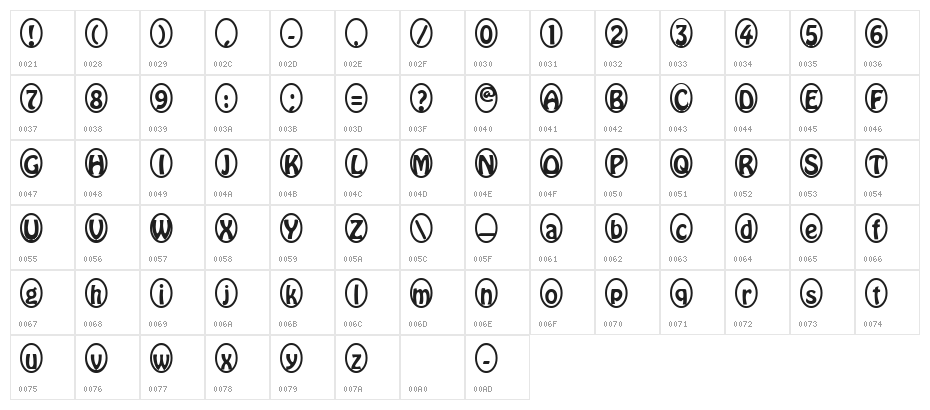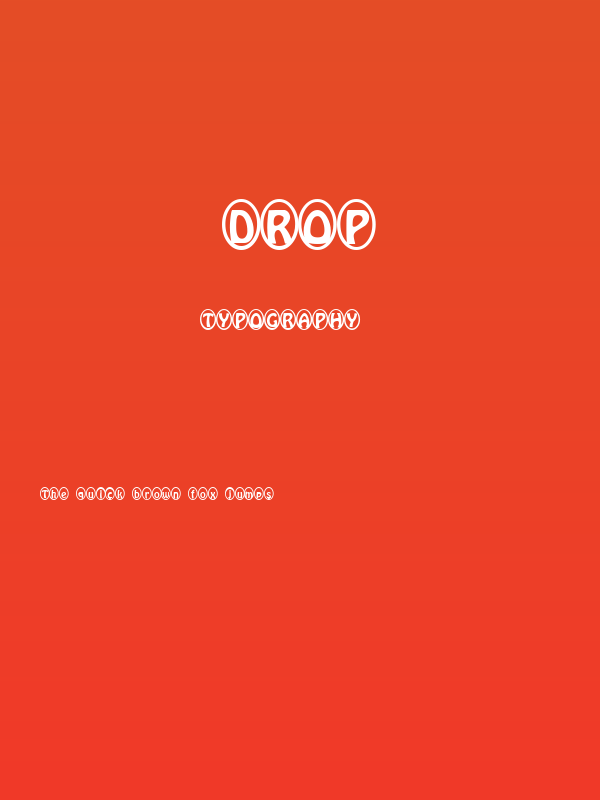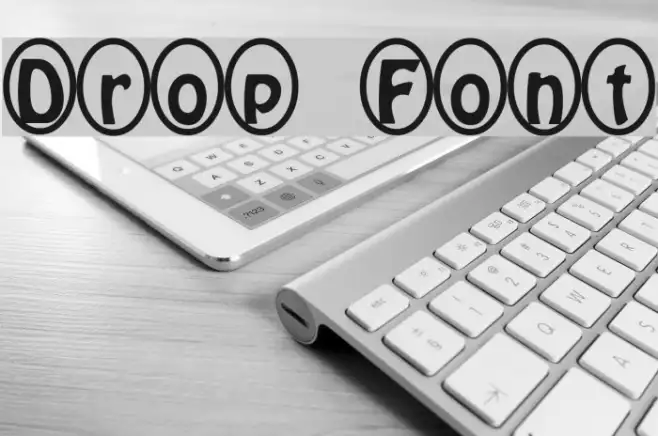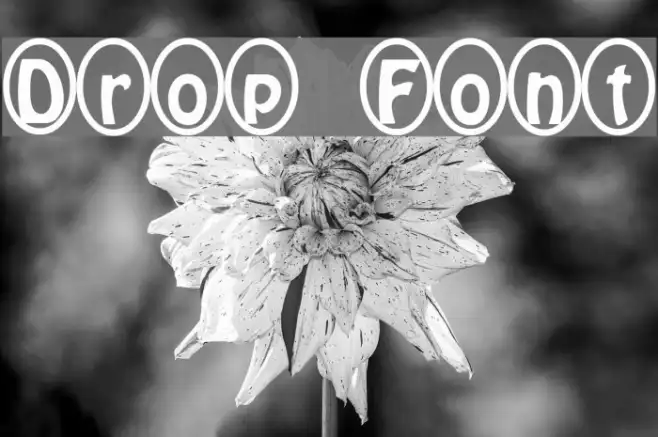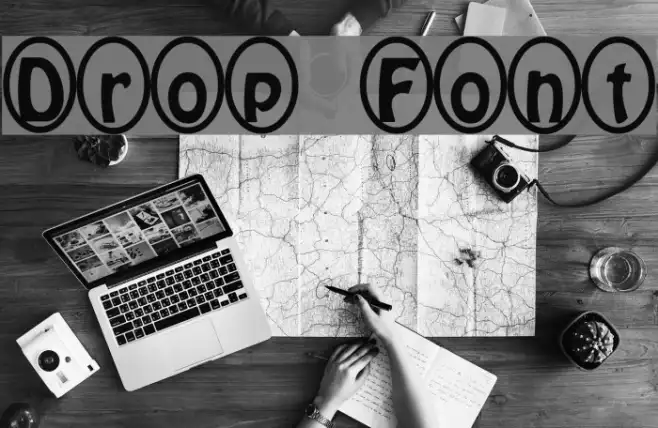
Drop Font
Drop Description
This playful and bold font features characters enclosed within circular outlines, creating a distinct and eye-catching appearance. Each letter and number is centered within its own circle, giving the font a unique and uniform look. The bold strokes and rounded edges contribute to its friendly and approachable style. The consistent circular design across all characters adds a cohesive and structured feel, making it suitable for projects that require a fun yet organized aesthetic. The font's design is both modern and whimsical, making it ideal for creative and informal applications.
| Overall Style | Modern, Whimsical |
| Proposed Projects | Ideal for children's books, playful branding, creative posters, and informal invitations. |